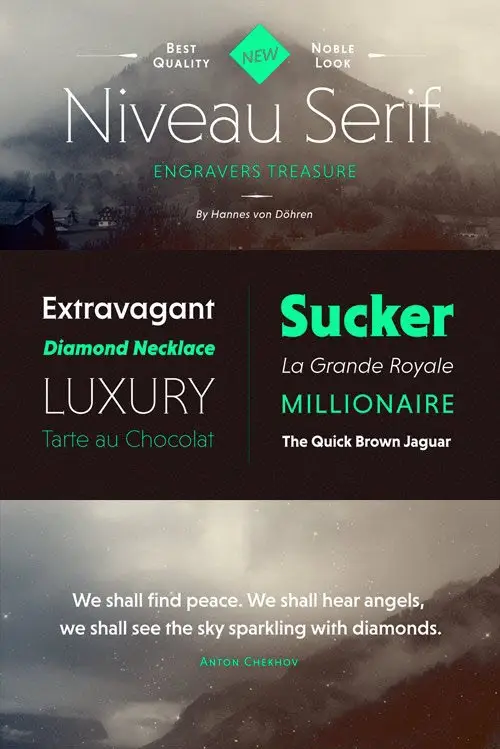
Niveau Serif - the companion of Niveau Grotesk - is a type family of six weights plus matching italics & small caps. It was designed by Hannes von Döhren in 2013. Influenced by classical nineteenth century engravers faces, the fonts are based on geometric forms. Niveau Serif has a contemporary feel and combines the clearness of a Sans with the elegance of a typeface with serifs. Niveau Serif is equipped for complex, professional typography with alternate letters, arrows, fractions and an extended character set to support Central and Eastern European as well as Western European Languages.